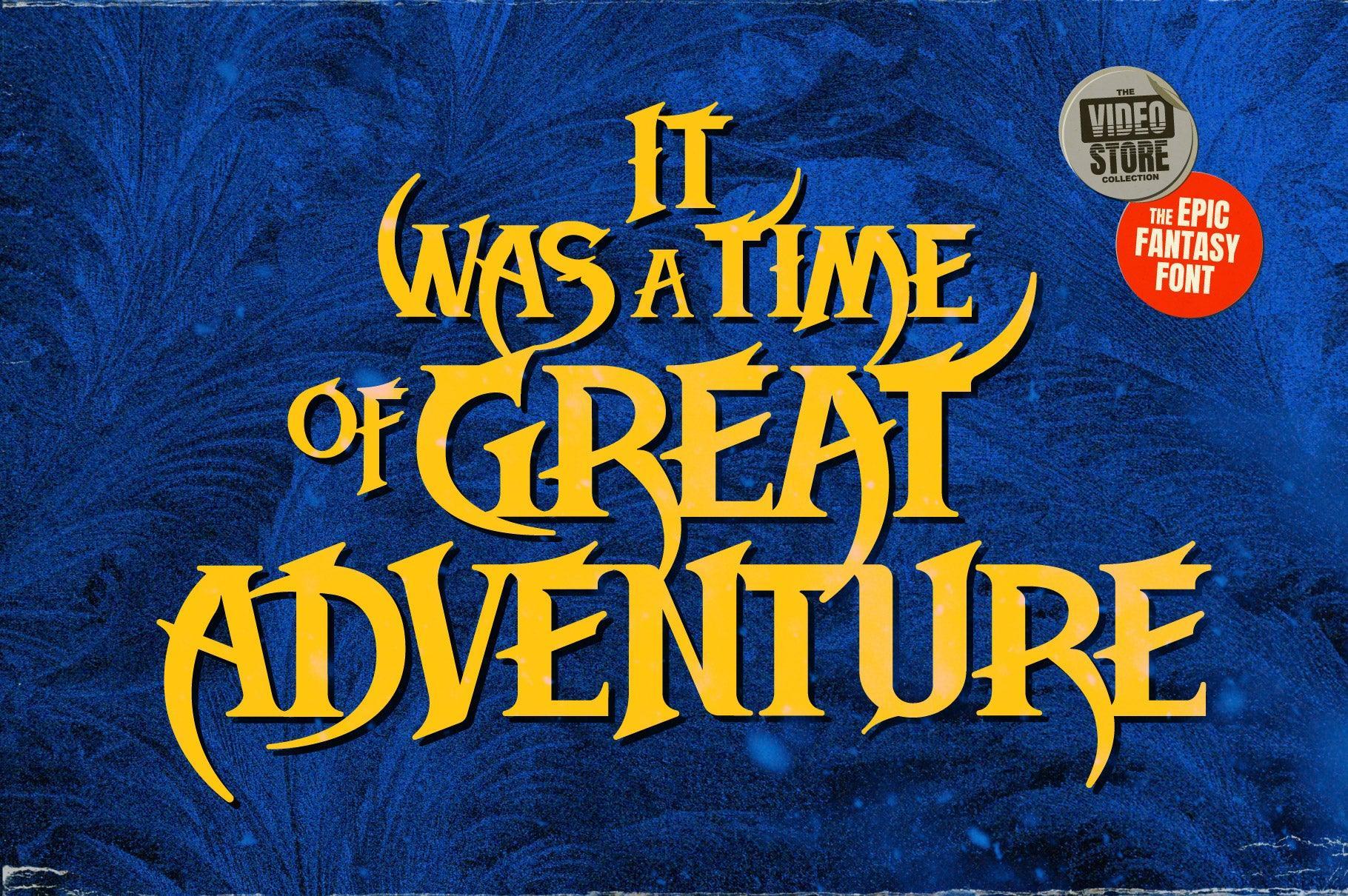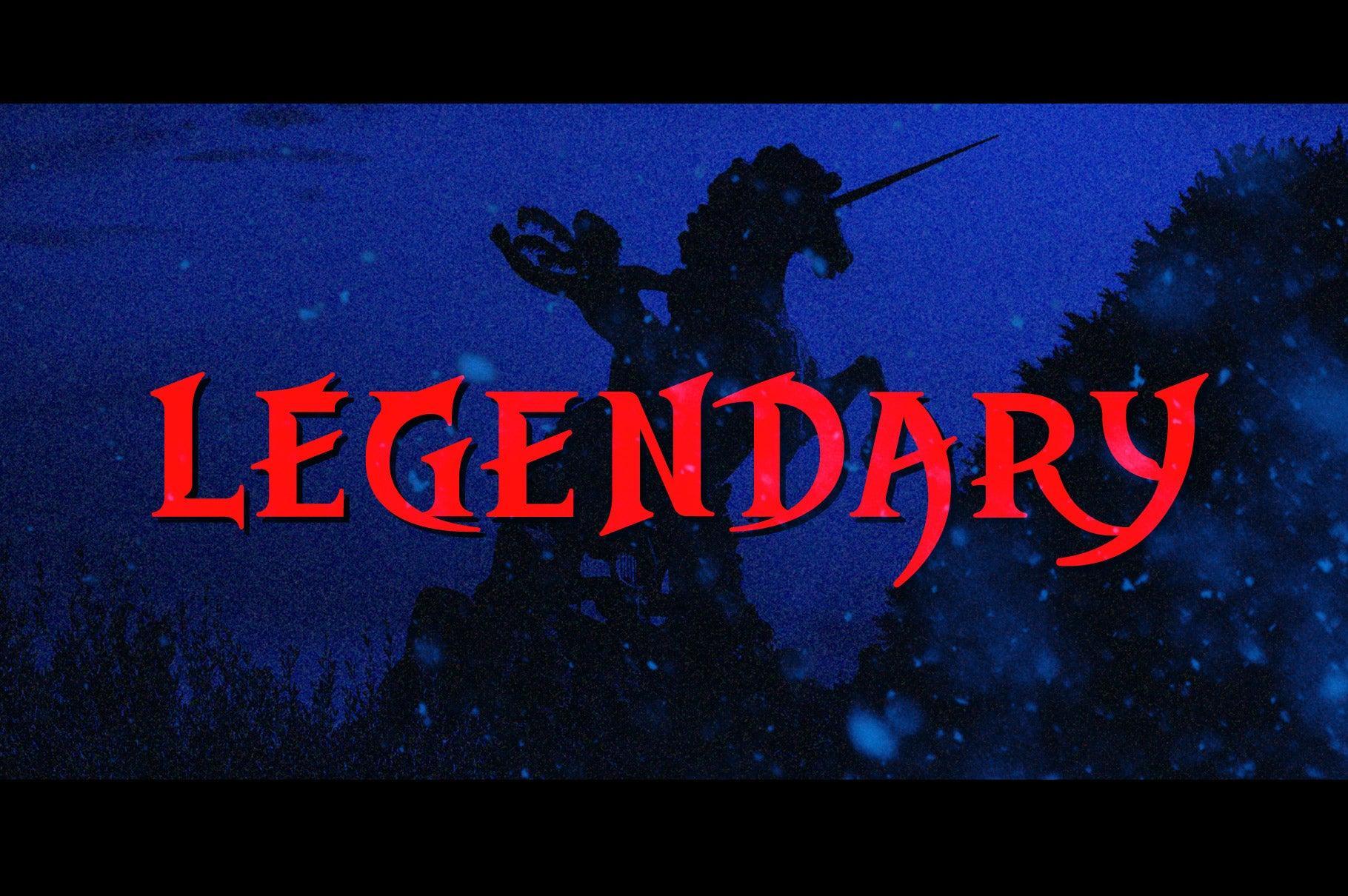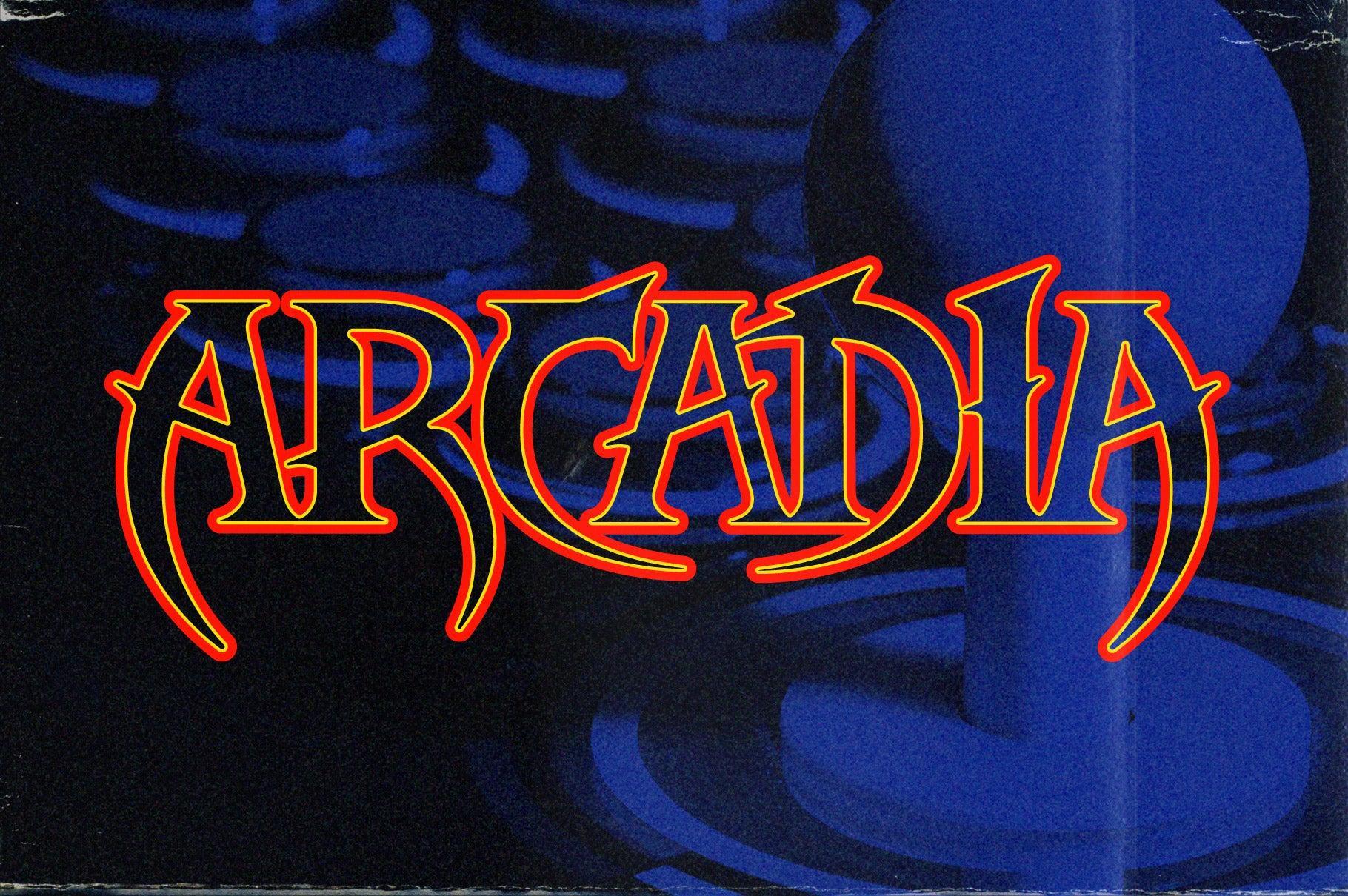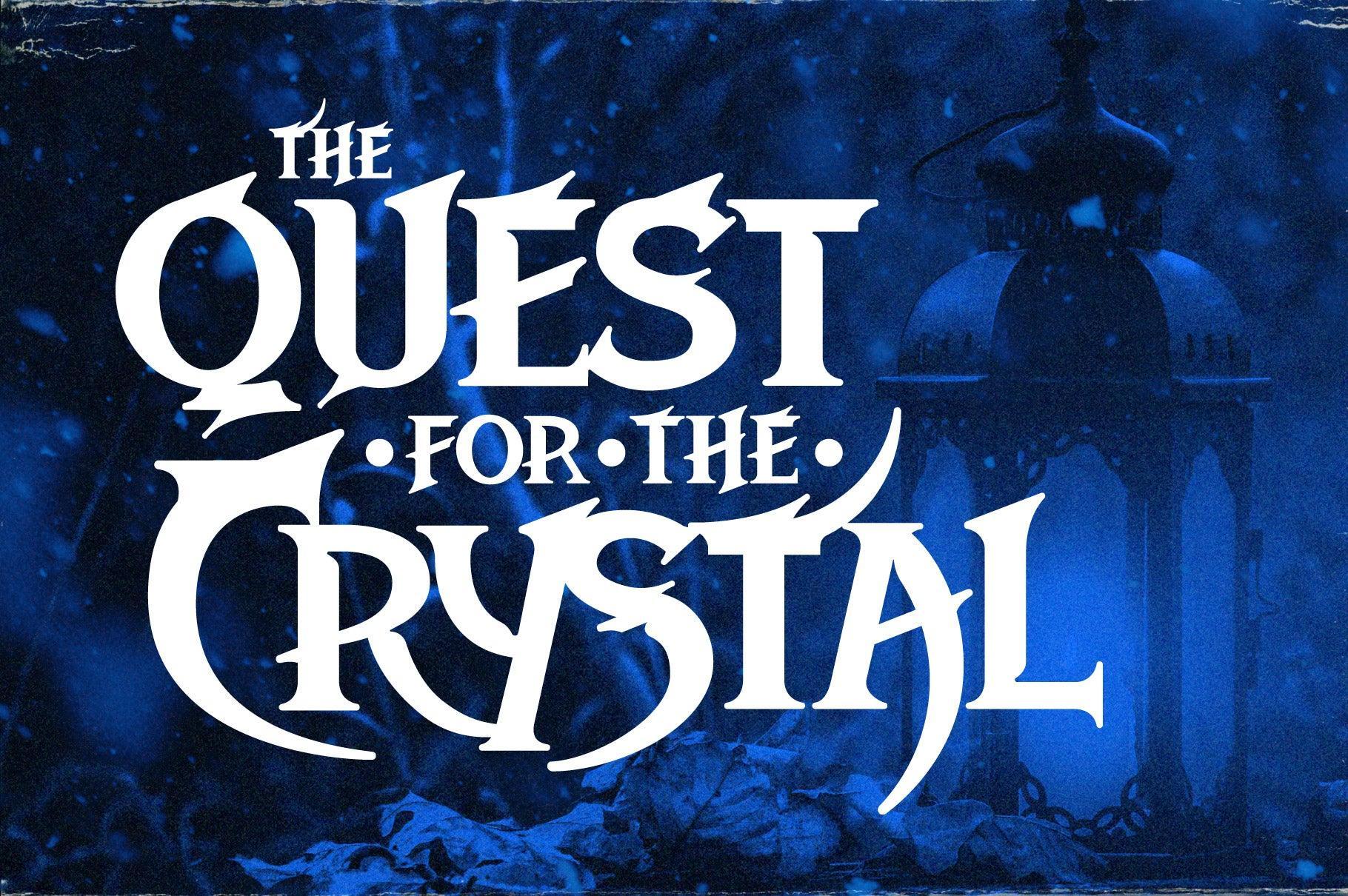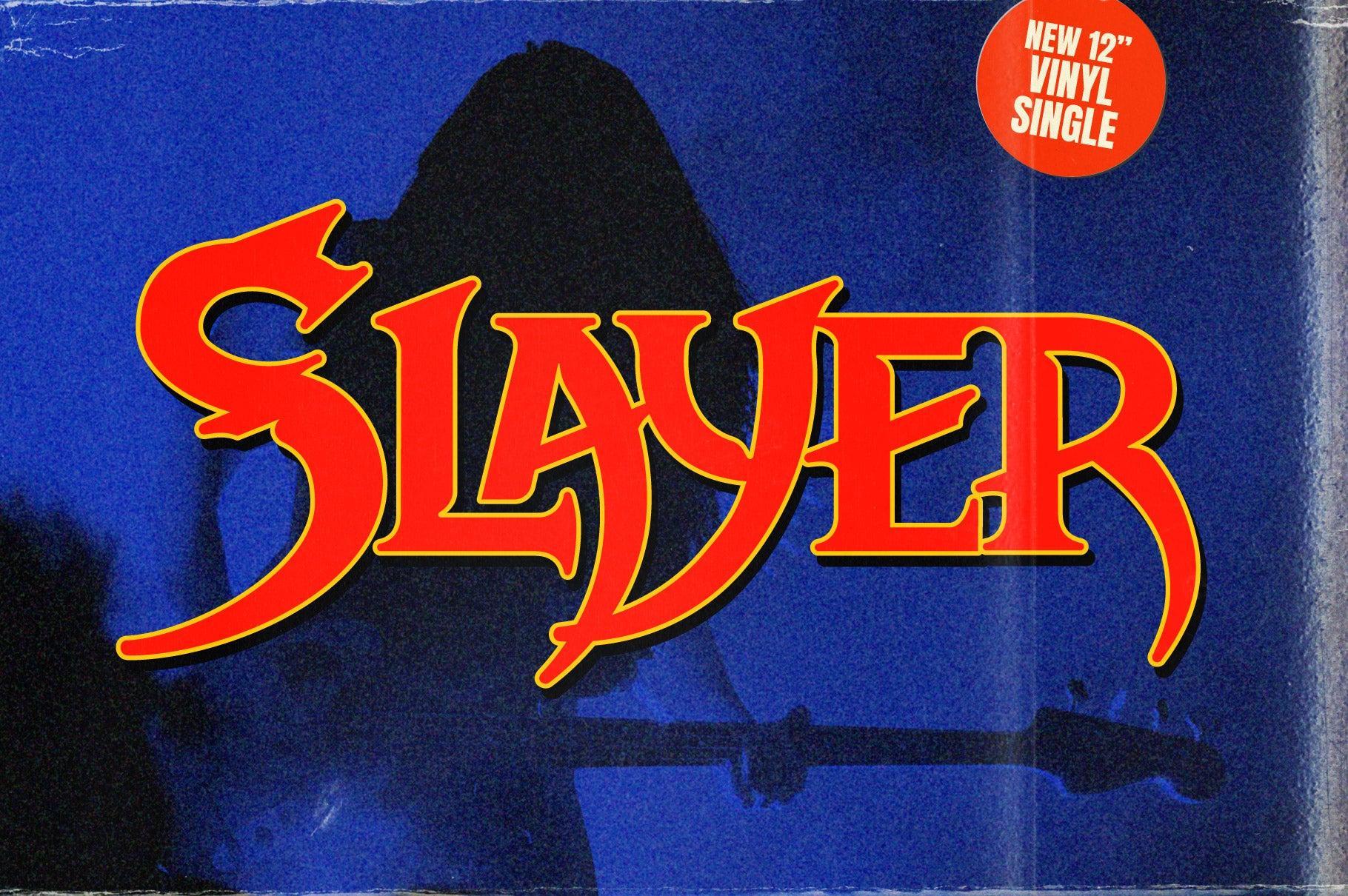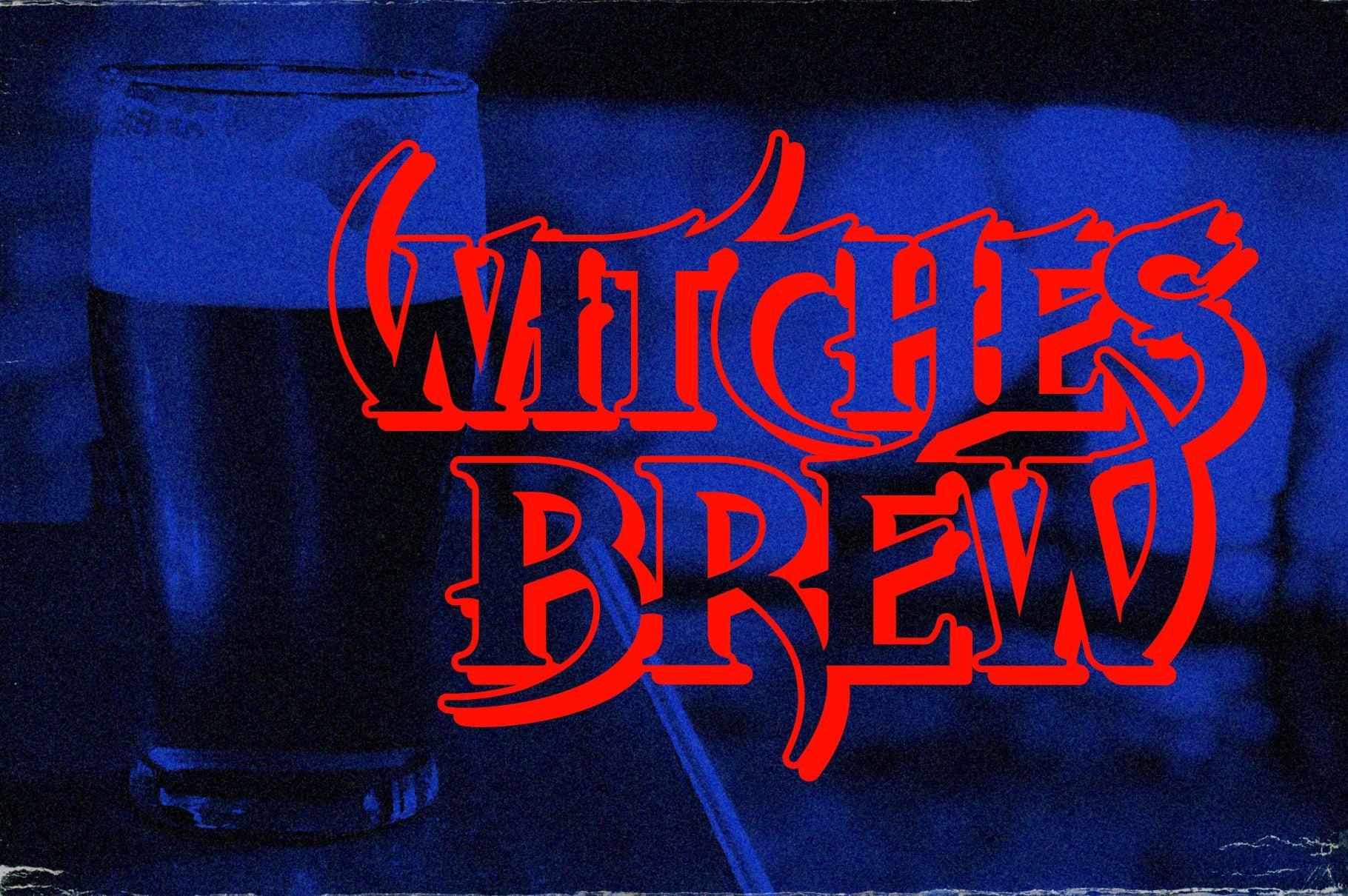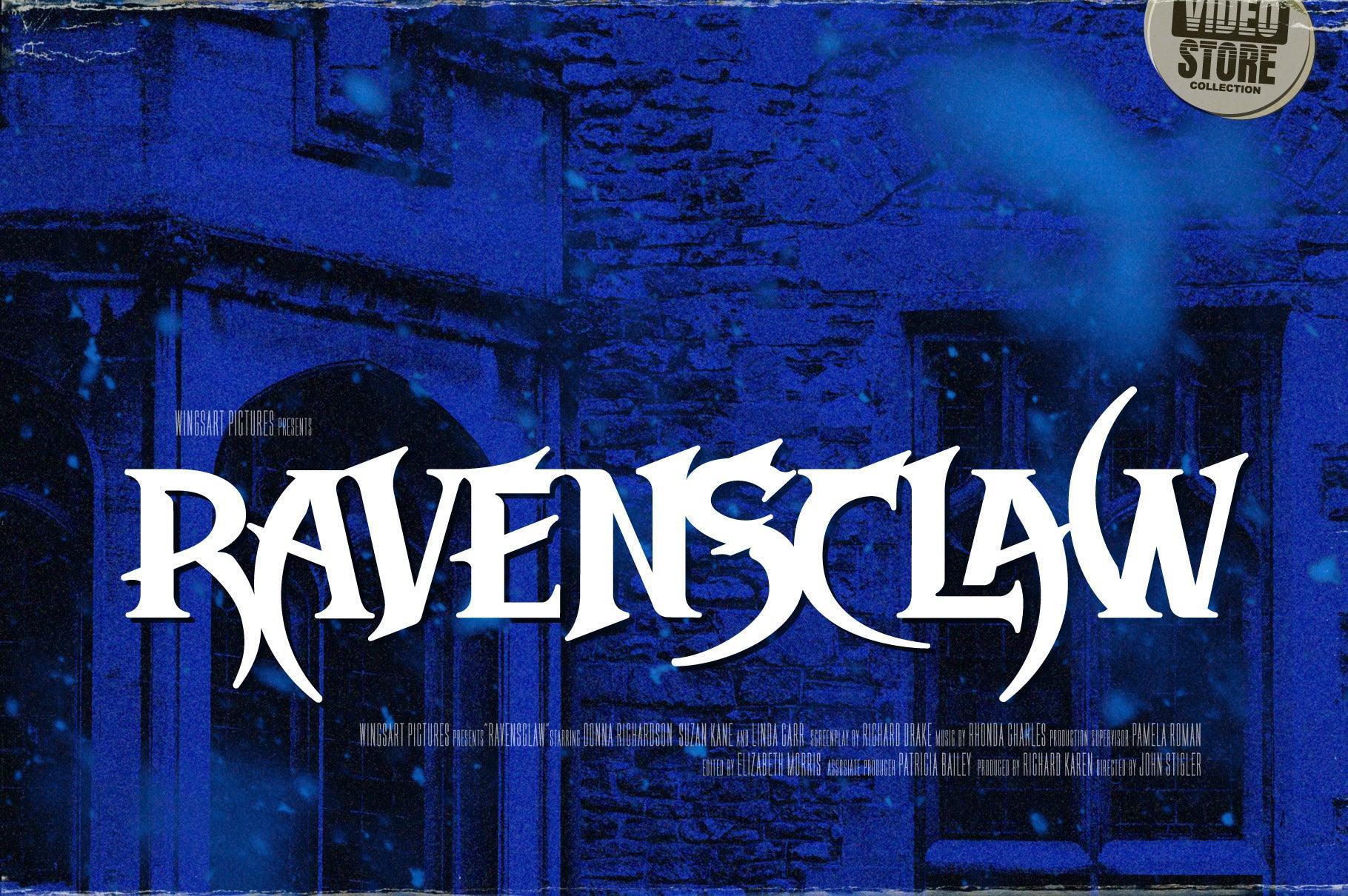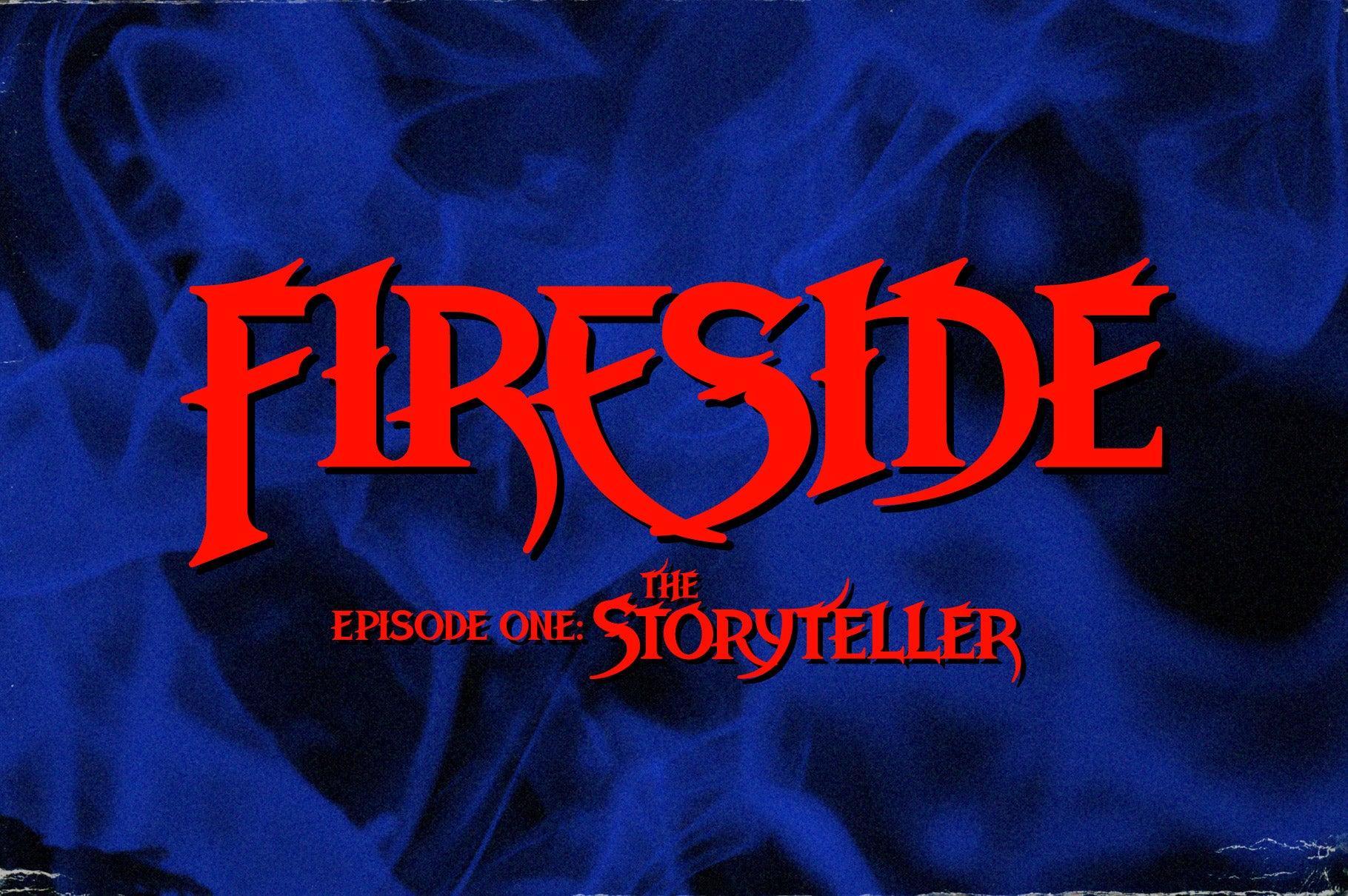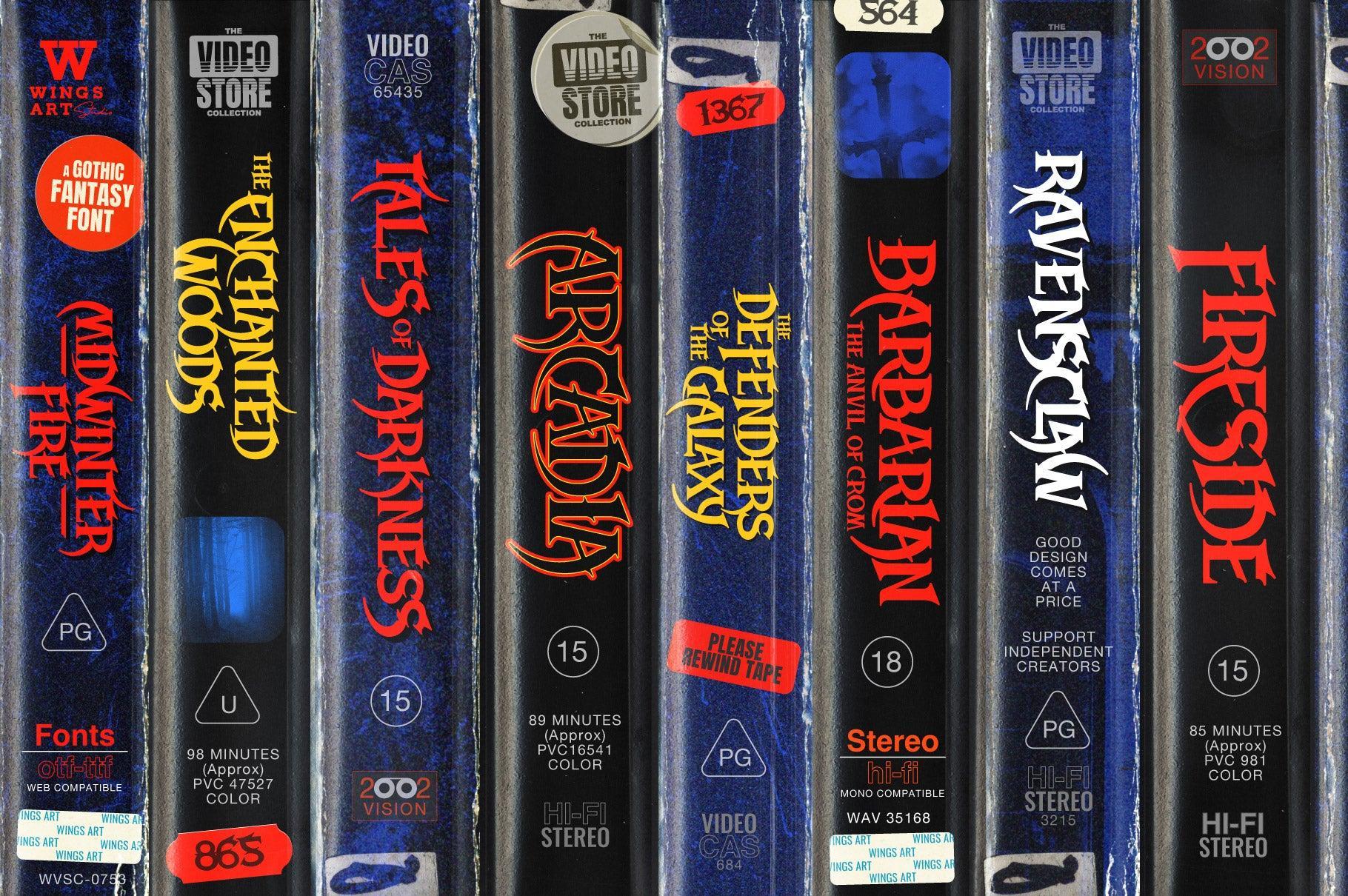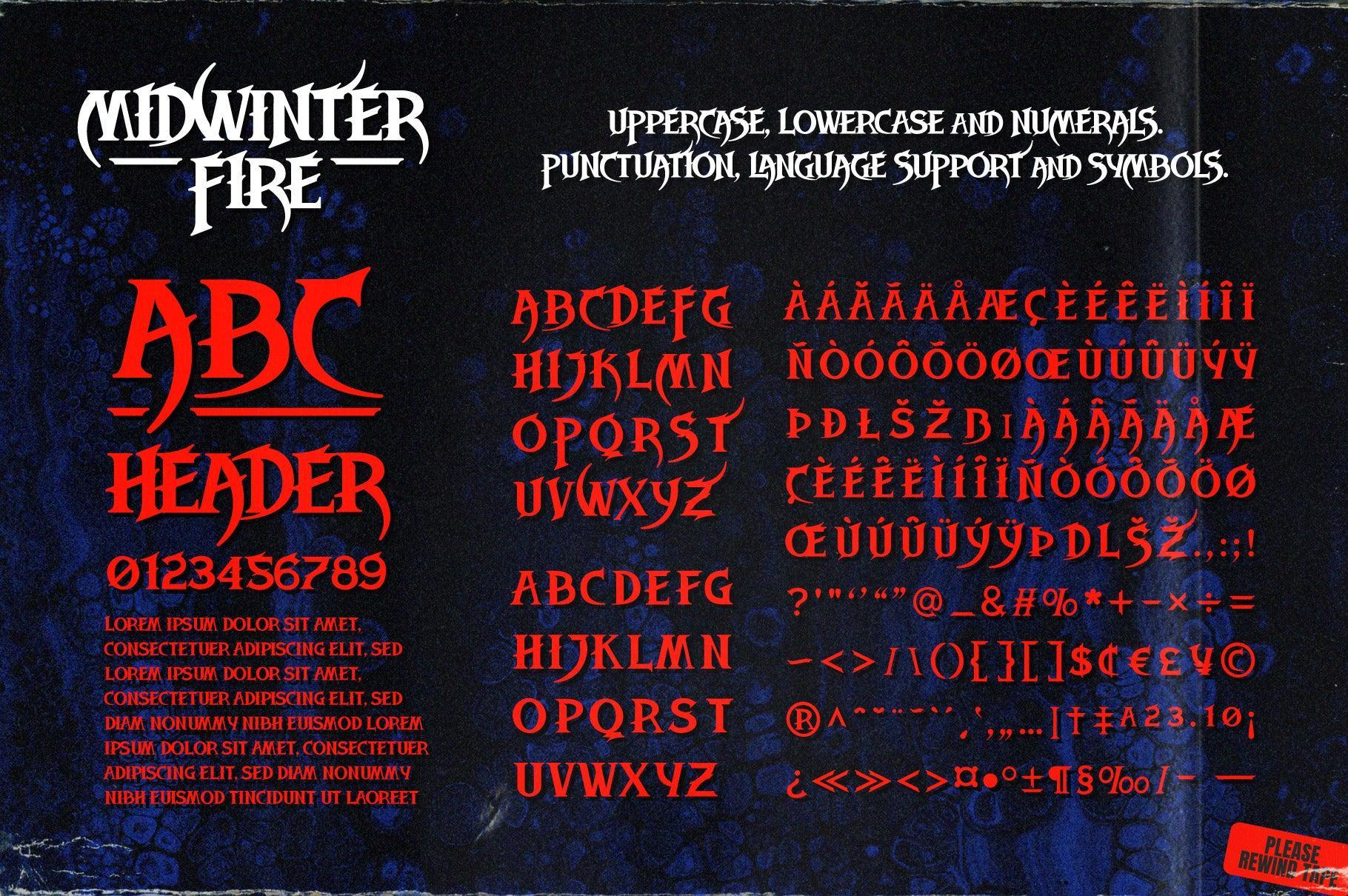
Midwinter Fire: A Gothic Fantasy Font
Midwinter Fire is a decorative serif font inspired by gothic fantasy and horror, featuring an all-caps design with alternative characters, underlines, numerals, and punctuation. This versatile font offers readability at smaller sizes and includes language support, making it suitable for various applications.
Ideal for gothic-inspired graphic design and fantasy-themed projects. Perfect for book covers, movie titles, rock album artwork, and vintage branding, ensuring a captivating and legible decorative serif style that enhances the overall aesthetic.